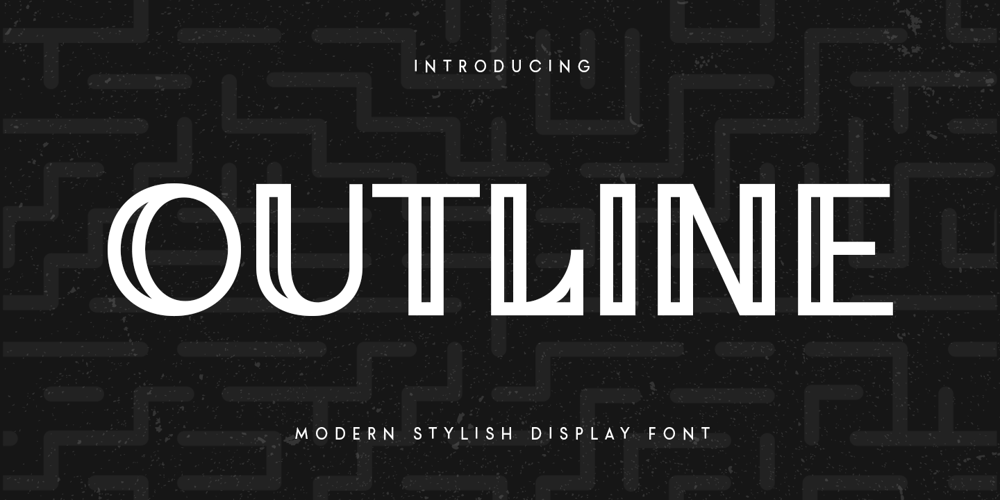
Outline Style Font Family was designed by Zamroni Hamzah and published by Sensatype Studio. Outline Style contains 1 styles and family package options. Outline is a Modern Stylish Display Font that perfect for headline, branding, logo, poster design, etcA new Display Font that we created special for Headline, Title and more stand out typography needs. It’s so perfect to add your style and headline overview. And specially for Headline font, we crafted for unique style and modern feels so enjoy to create any project that will show your main idea out.Outline Modern Stylish Display Font ready with: Unique style to get creative variations Preview as a inspirations that you can do with Outline font Ready with All characters Wish you enjoy our font. ๐